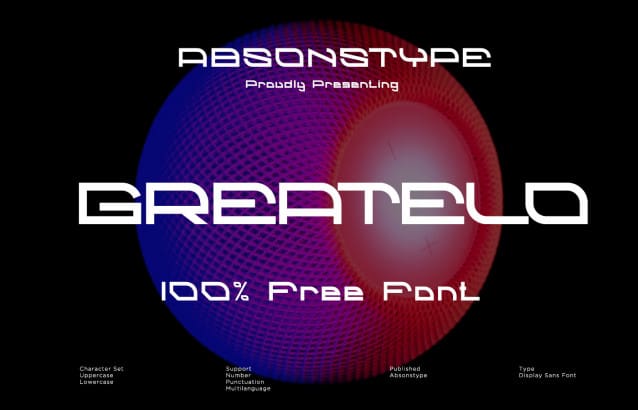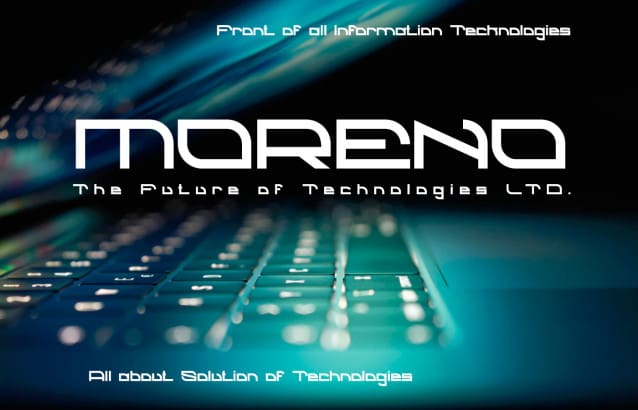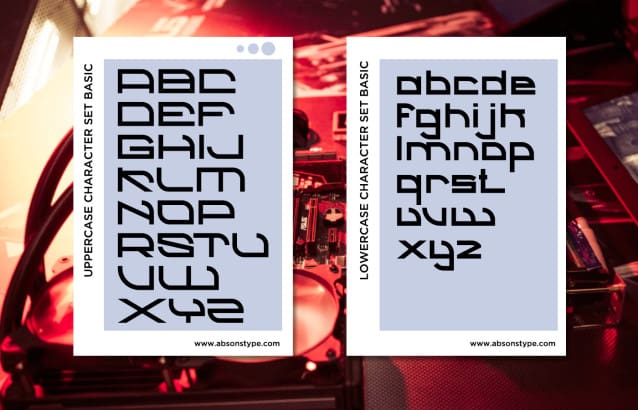
Greatelo Futuristic Font
Greatelo Futuristic Font is an authentic modern futuristic font that is perfect for professional and product branding needs. This font is suitable for any branding project such as quotes, logos, blog headers, posters, ribbons, letters, invitations, stationery, etc… It is designed to be versatile and flexible that can be used on a variety of projects and mediums. extraordinary in a variety of contexts.